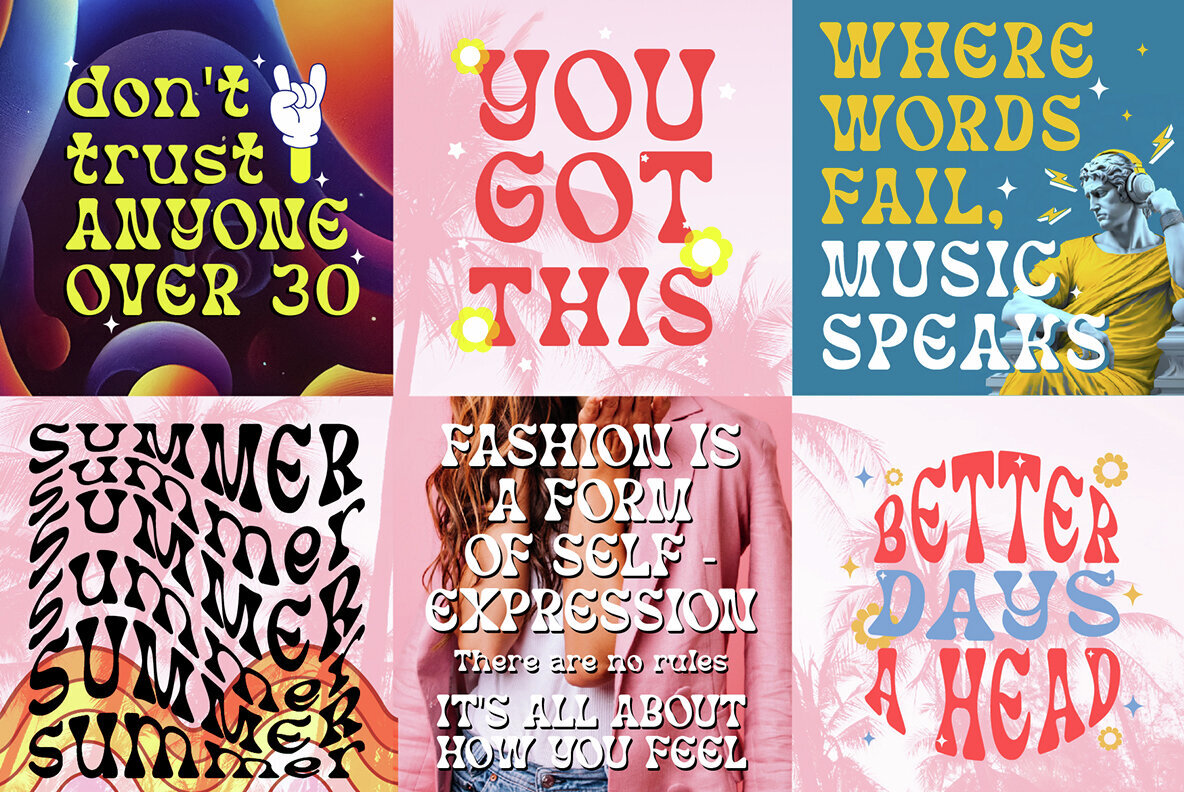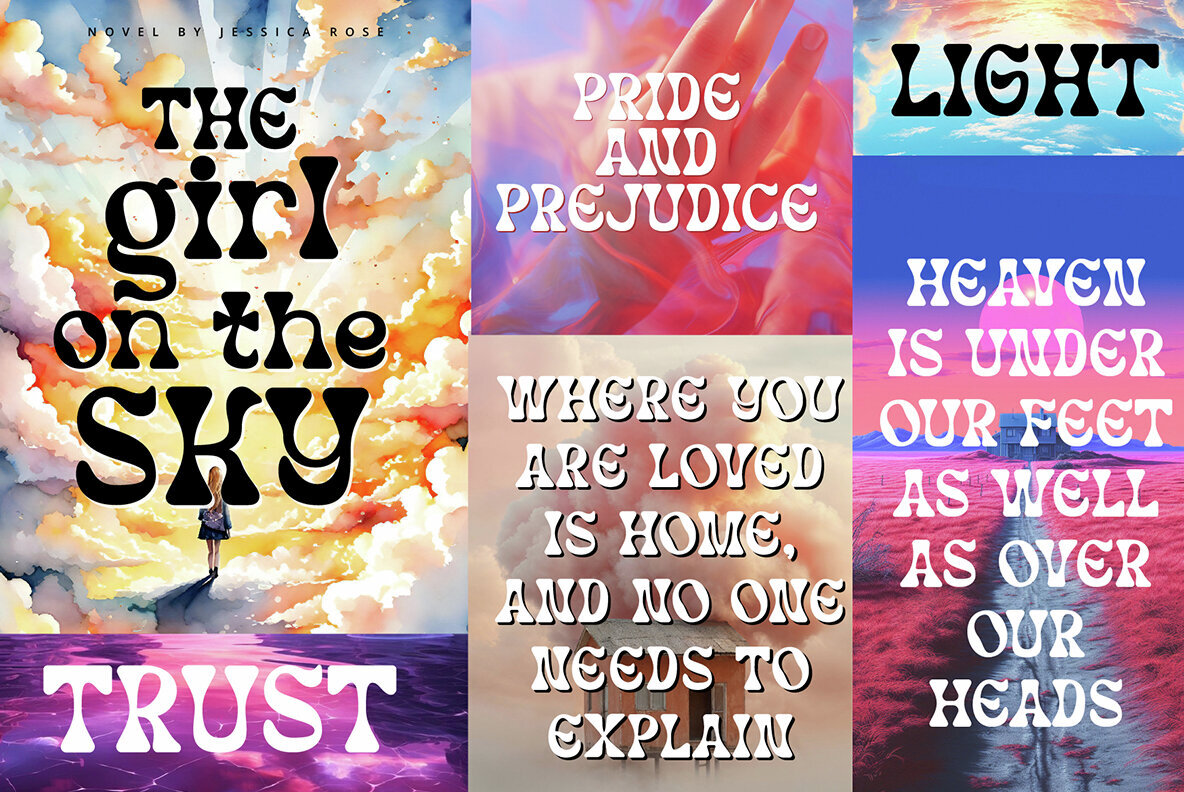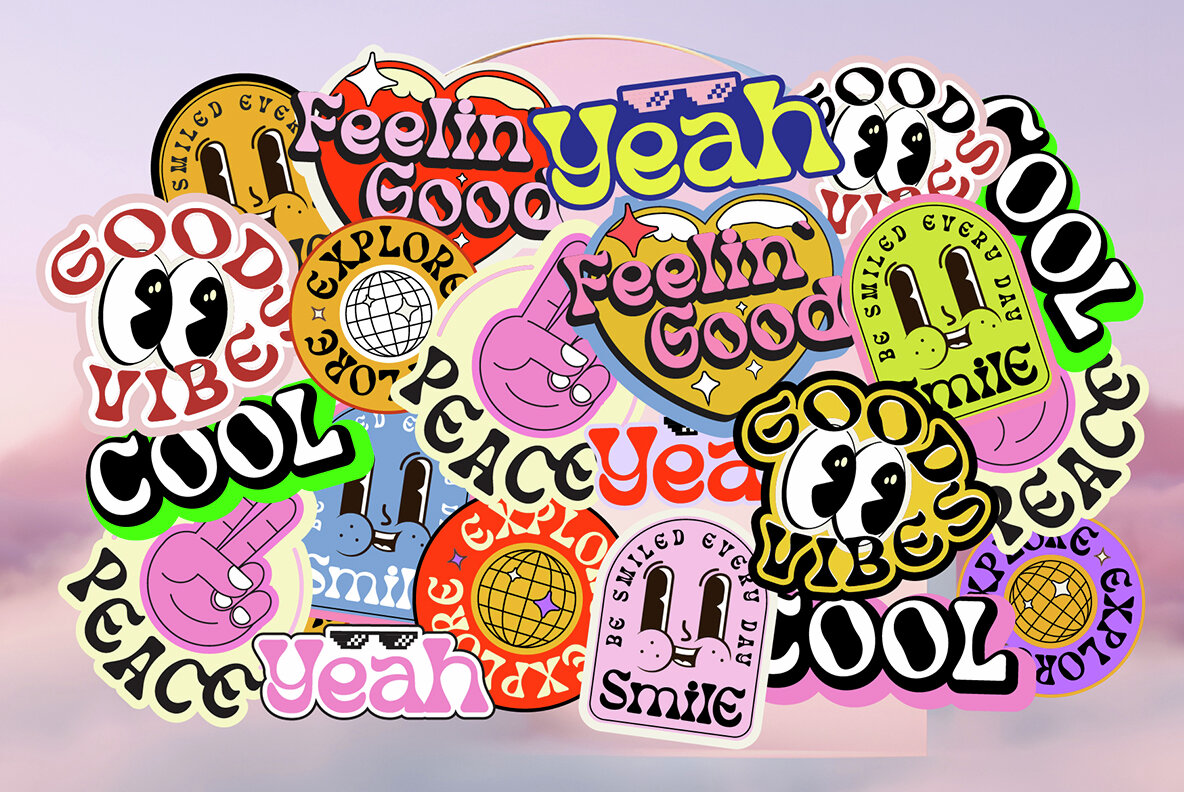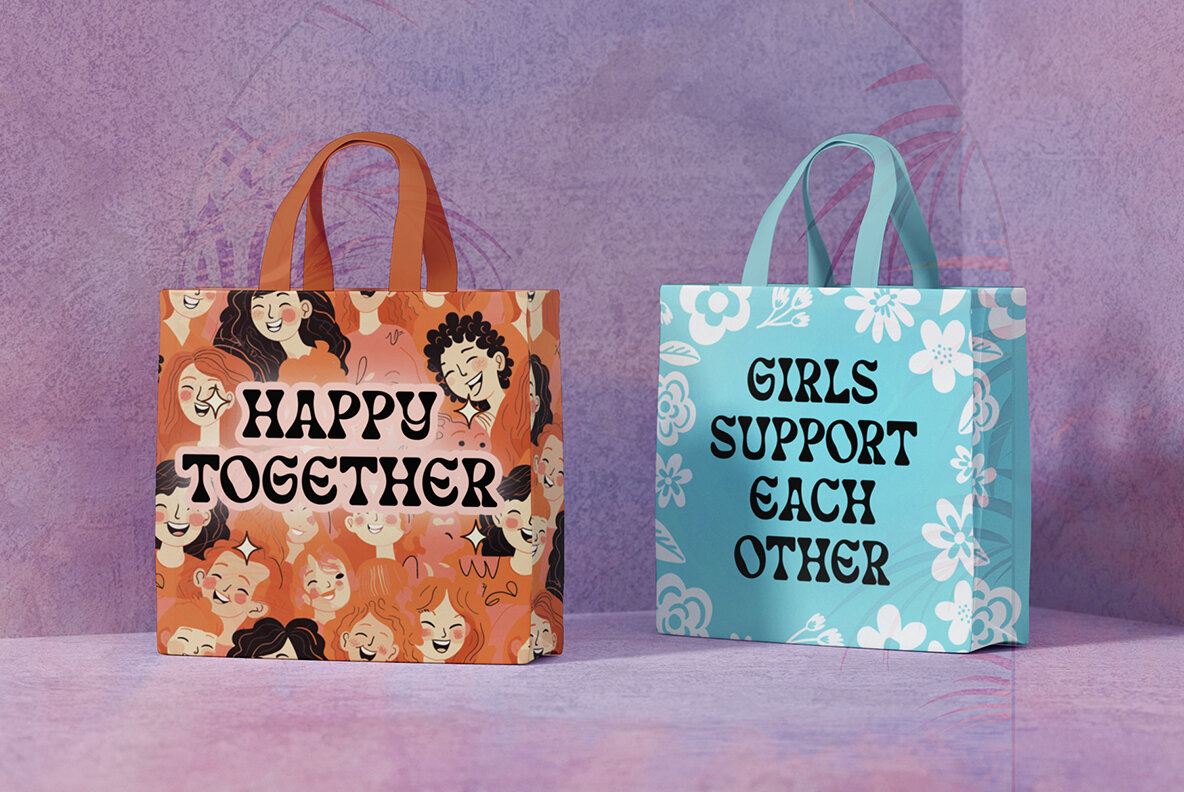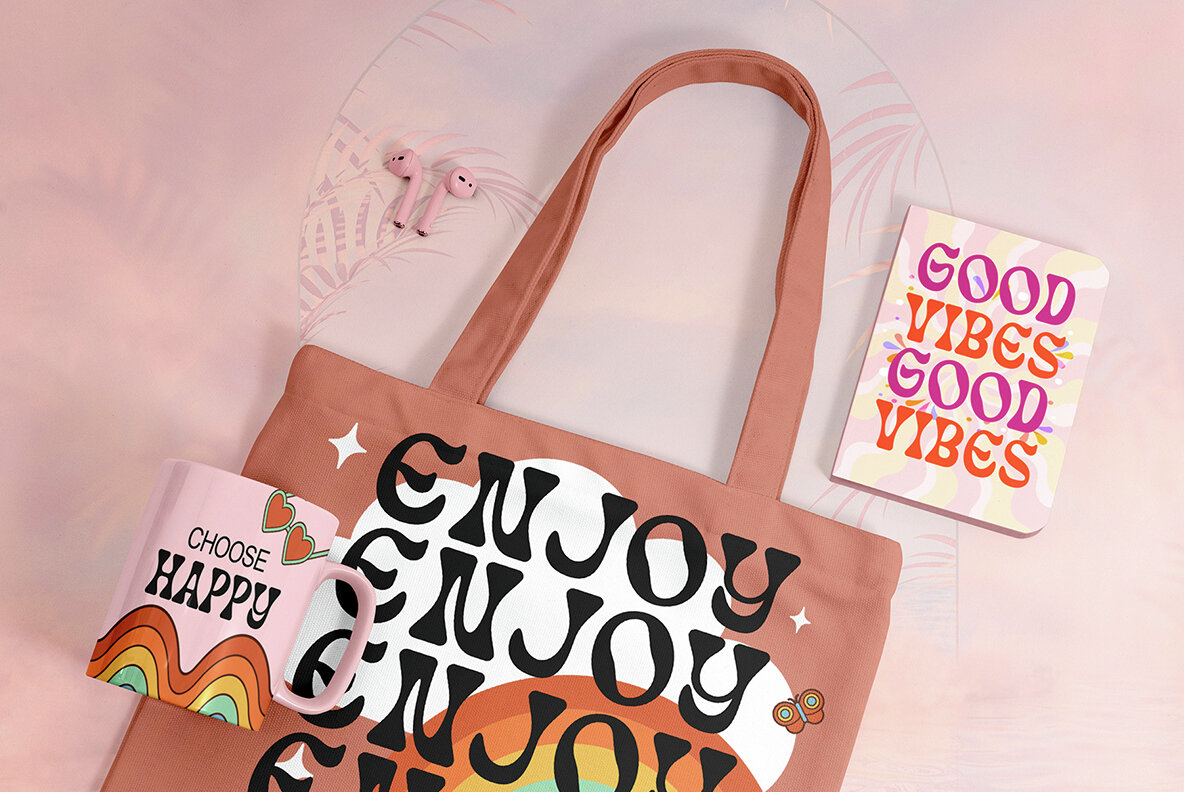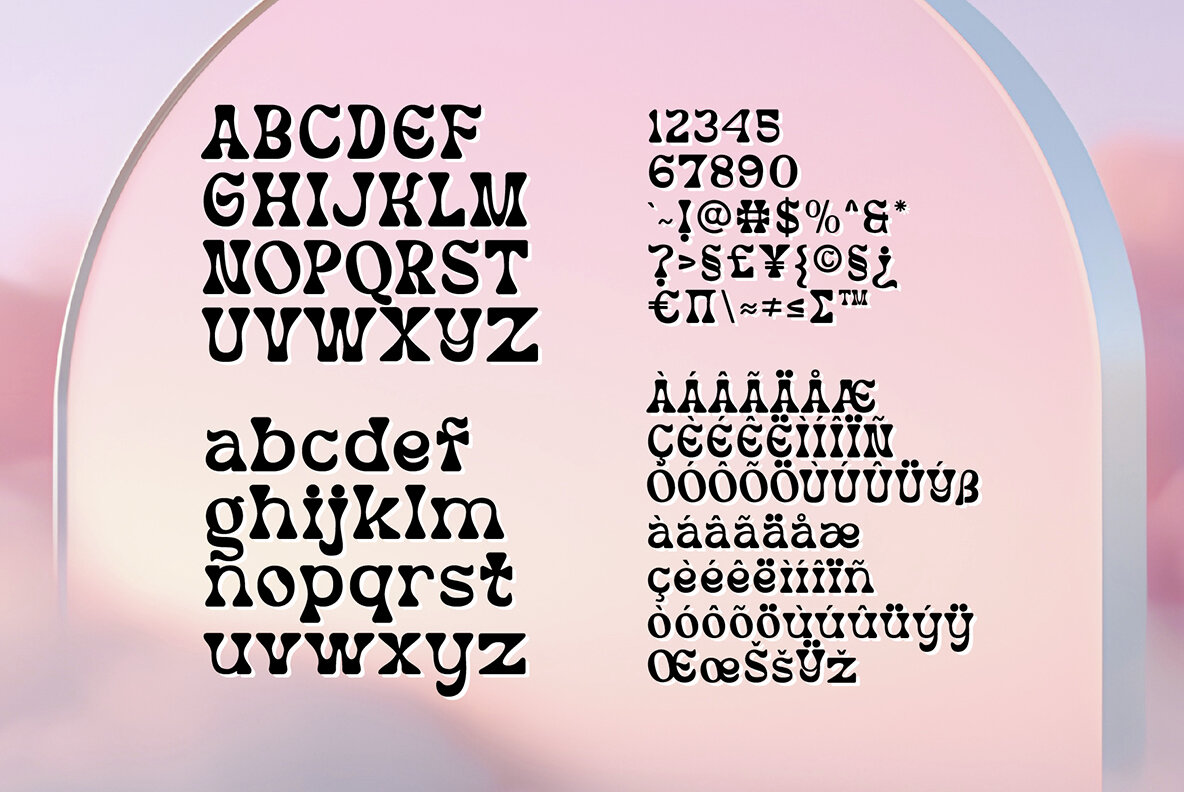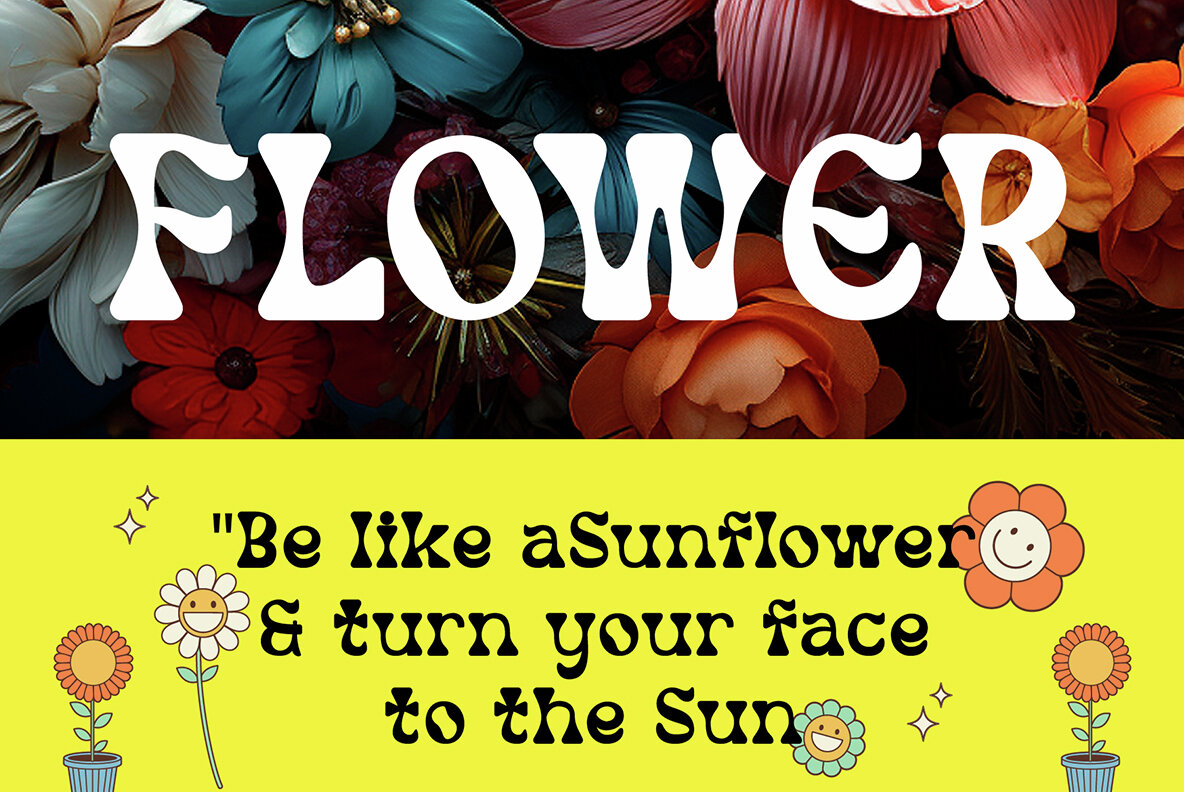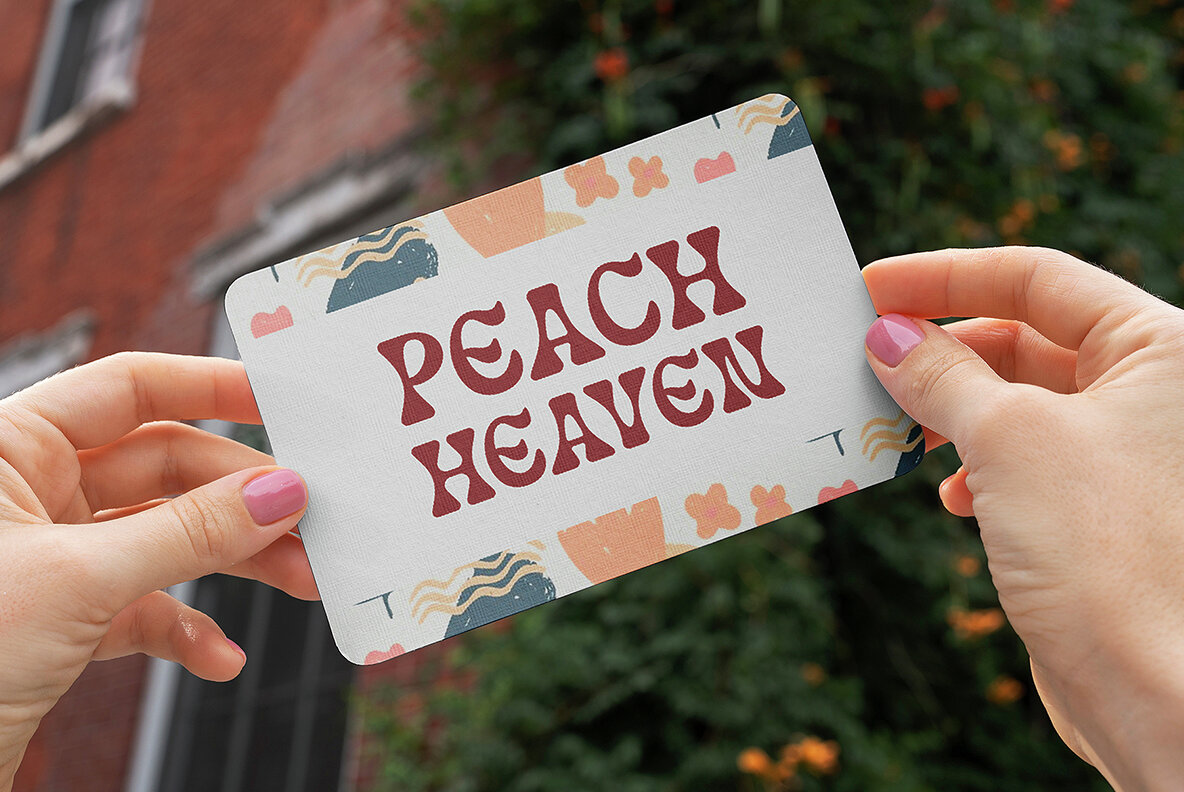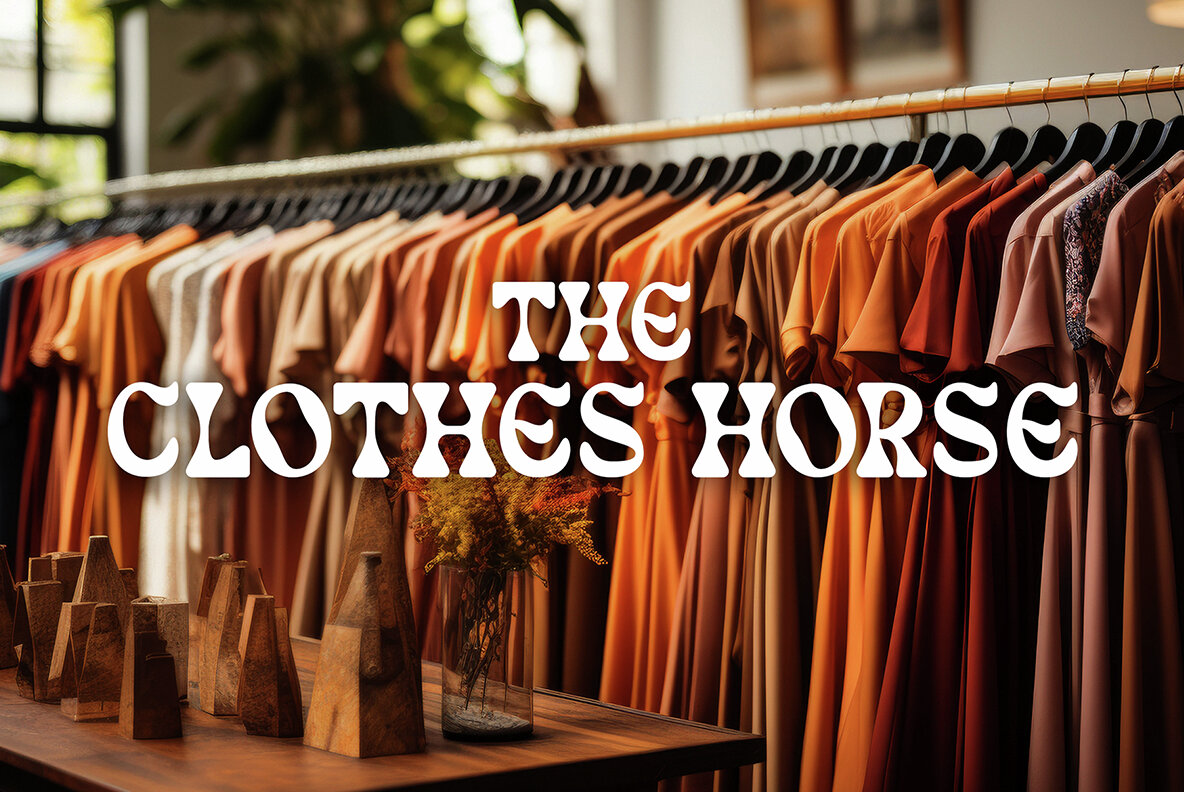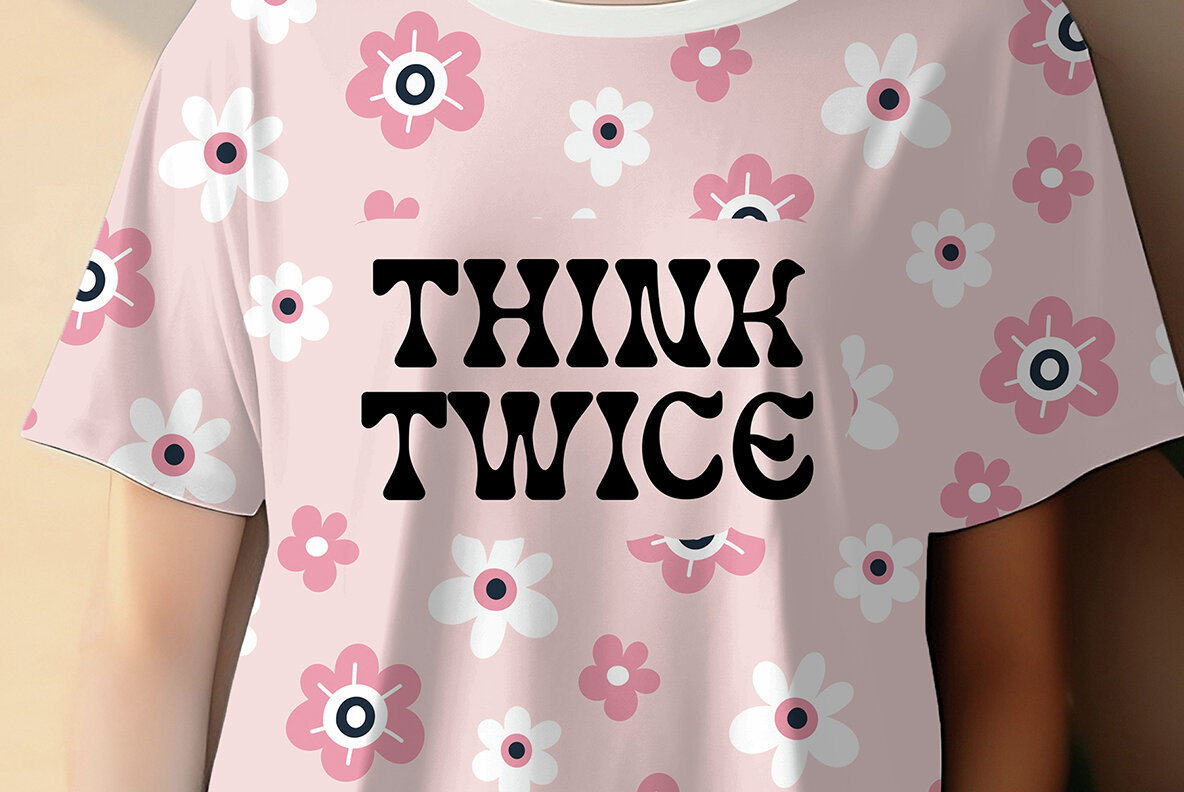
Peach Heaven Font
Peach Heaven Regular
Peace Heaven typeface inspired by psychedelic and display typeface. It's fun and groovy with a bold personality. Peace Heaven offers beautiful typographic harmony for a diversity of design projects, including logos & branding, wedding designs, social media posts, advertisements & product designs.